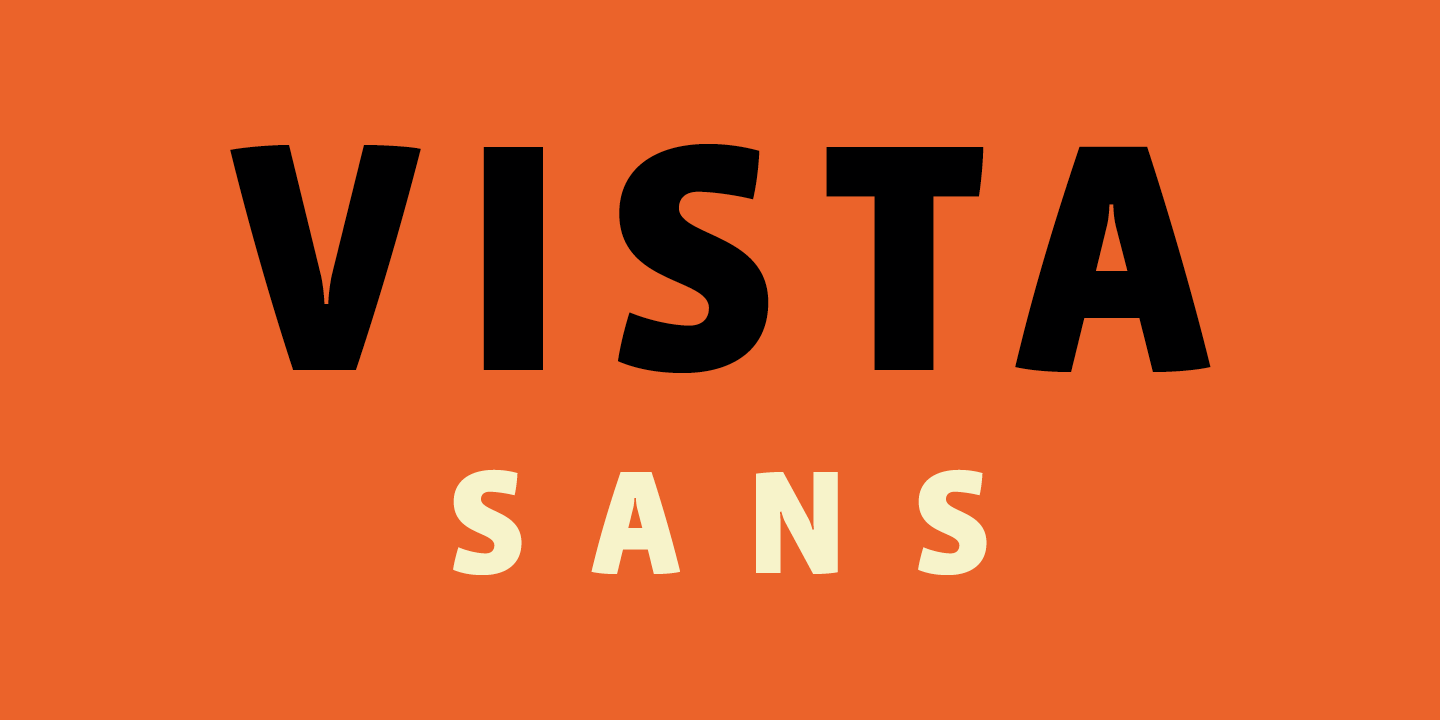
Vista Sans Font is ideal for scenic tourism branding, landscape photography portfolios, panoramic view marketing, travel destination guides, outdoor adventure companies, scenic overlook signage, vista point information displays, nature tourism campaigns, hiking trail materials, and breathtaking view promotional graphics.
What makes Vista Sans Font exciting is its expansive clarity and panoramic elegance that captures the essence of breathtaking views with wide-open perspectives and limitless horizons. This inspiring typeface embodies the spirit of scenic vistas with its open character forms and horizon-inspired proportions that evoke mountain summits, ocean panoramas, and the awe-inspiring moments when travelers reach spectacular viewpoints that take their breath away. The font's expansive character creates an immediate sense of wonder and the kind of visual freedom that comes from experiencing nature's most magnificent landscapes.
Vista Sans Font family includes regular weight with expansively crafted character designs featuring panoramic proportions and scenic styling. The typeface maintains excellent readability while showcasing its distinctive view-focused personality through openly designed letterforms that seem to stretch across visual horizons like the endless possibilities visible from the world's most spectacular vantage points.
Tourism professionals consistently choose Vista Sans Font Free Download for projects requiring authentic scenic appeal and panoramic credibility. This remarkable typeface brings the power of spectacular views to brand communications, combining expansive aesthetics with travel inspiration to create unforgettable destination experiences. The expansively designed characters ensure maximum scenic impact across all applications, making it essential for tourism boards, travel companies, and any organization seeking to communicate the transformative power of spectacular views and the life-changing inspiration that comes from experiencing the world's most breathtaking vistas through Vista Sans Font Free Download.